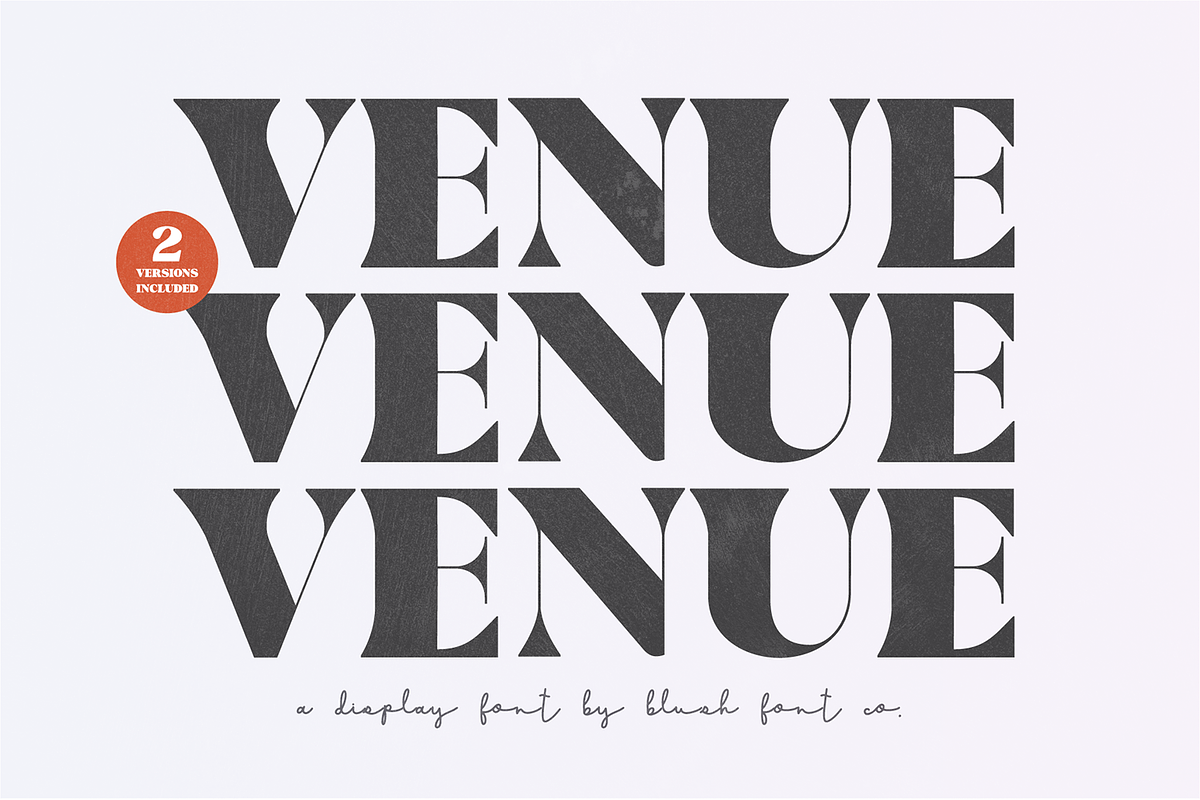
VENUE Modern Serif Wedding Font Free Download
VENUE Modern Serif Wedding Font Free Download is a sleek and romantic typeface crafted especially for elegant occasions. With its refined curves, high-contrast strokes, and timeless serif design, this font is a go-to choice for wedding invitations, luxury branding, event signage, and editorial spreads that demand sophistication and class.
VENUE exudes modern elegance while maintaining a classic charm, making it versatile for both print and digital projects. Its graceful letterforms and stylish ligatures bring a designer feel to any layout, effortlessly enhancing your creative vision.